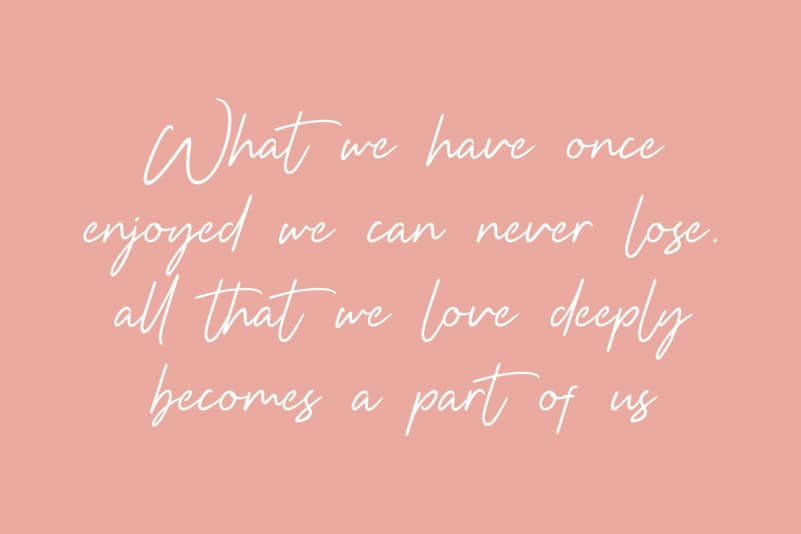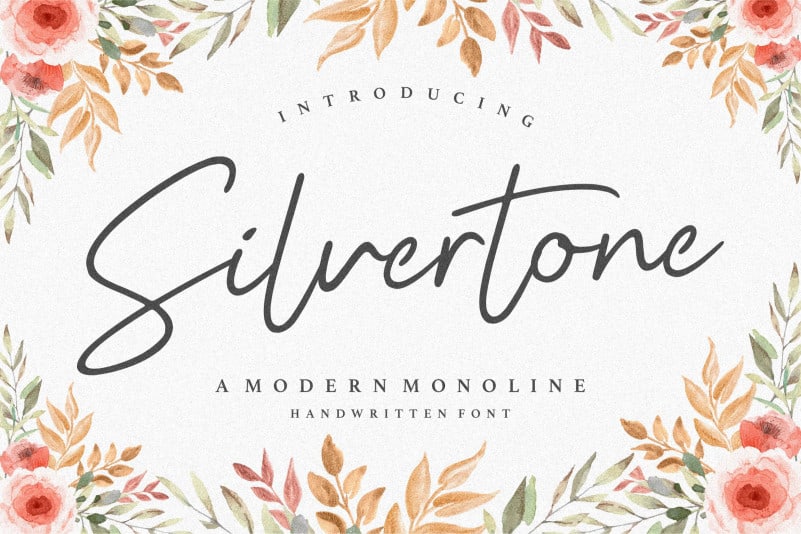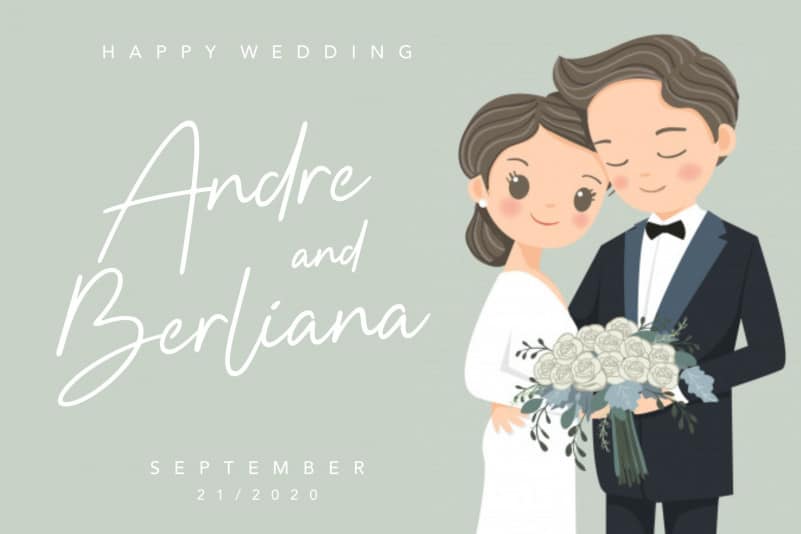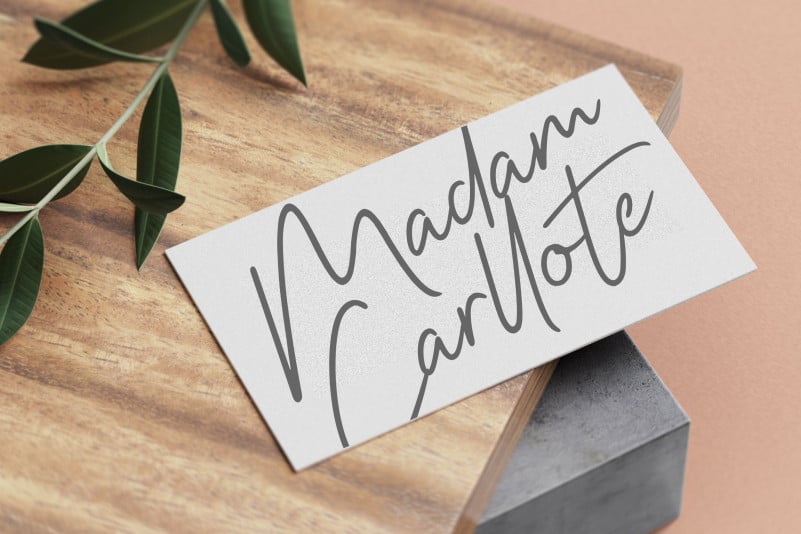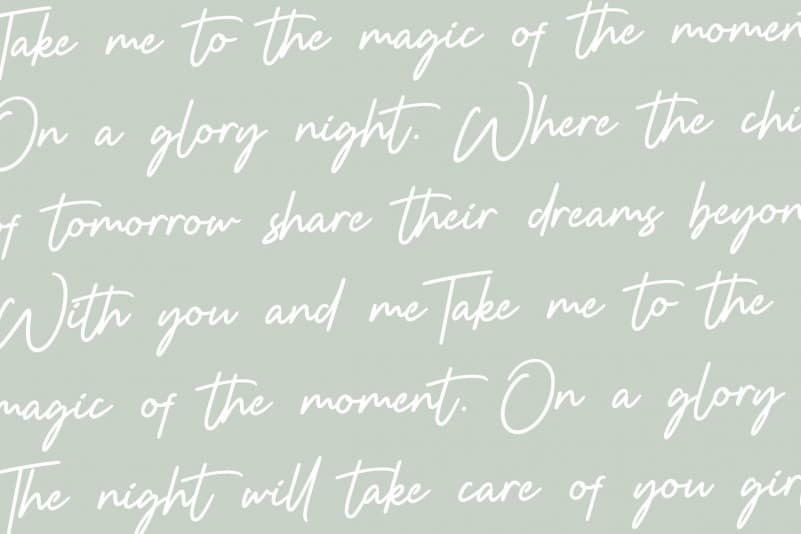
Silvertone Monoline Handwritten Font
Proudly Present, Silvertone Monoline Handwritten Font.
Silvertone is a Modern Monoline Handwritten Font.
It is perfect for product packaging, branding project, megazine, social media, wedding, or just used to express words above the background.